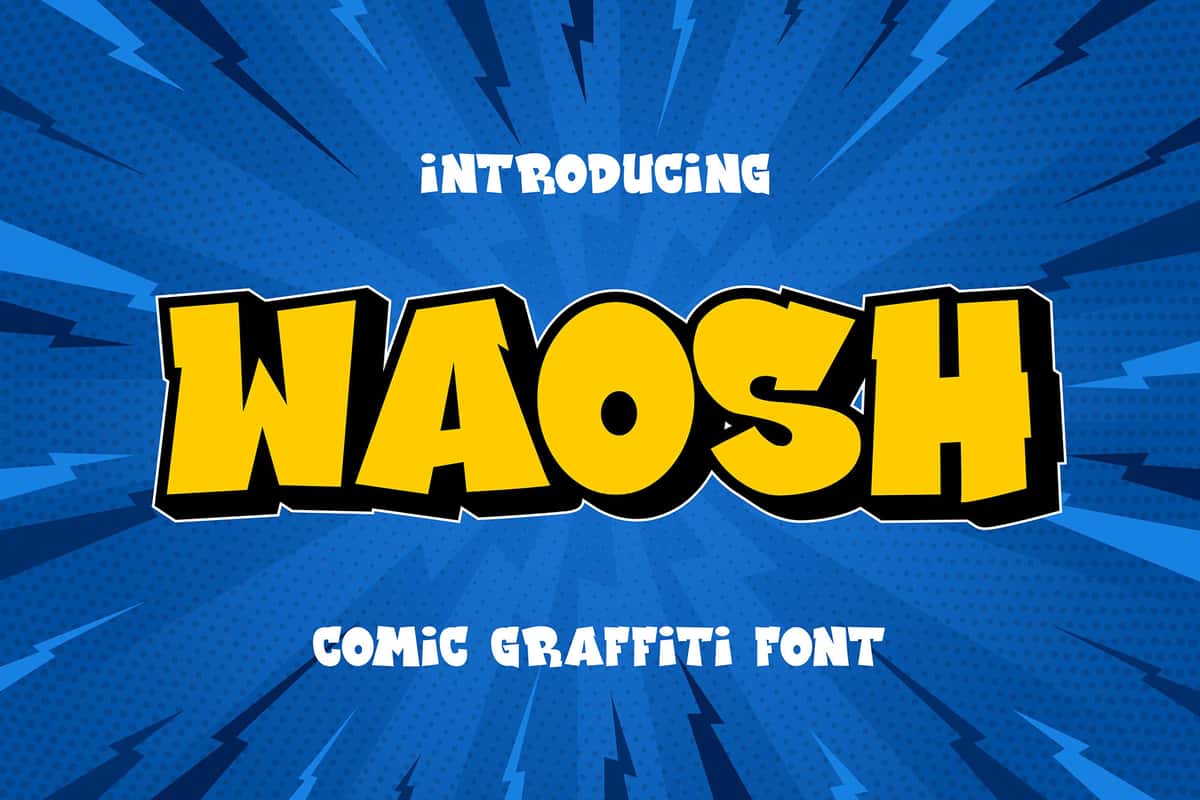
Waosh - Shadow
Introducing Waosh – the ultimate Comic Graffiti Font that bursts with energy and playful charm. Designed to inject a dose of fun and dynamism into your projects, Waosh is perfect for those who seek a bold and vibrant typographic style that stands out in any crowd.